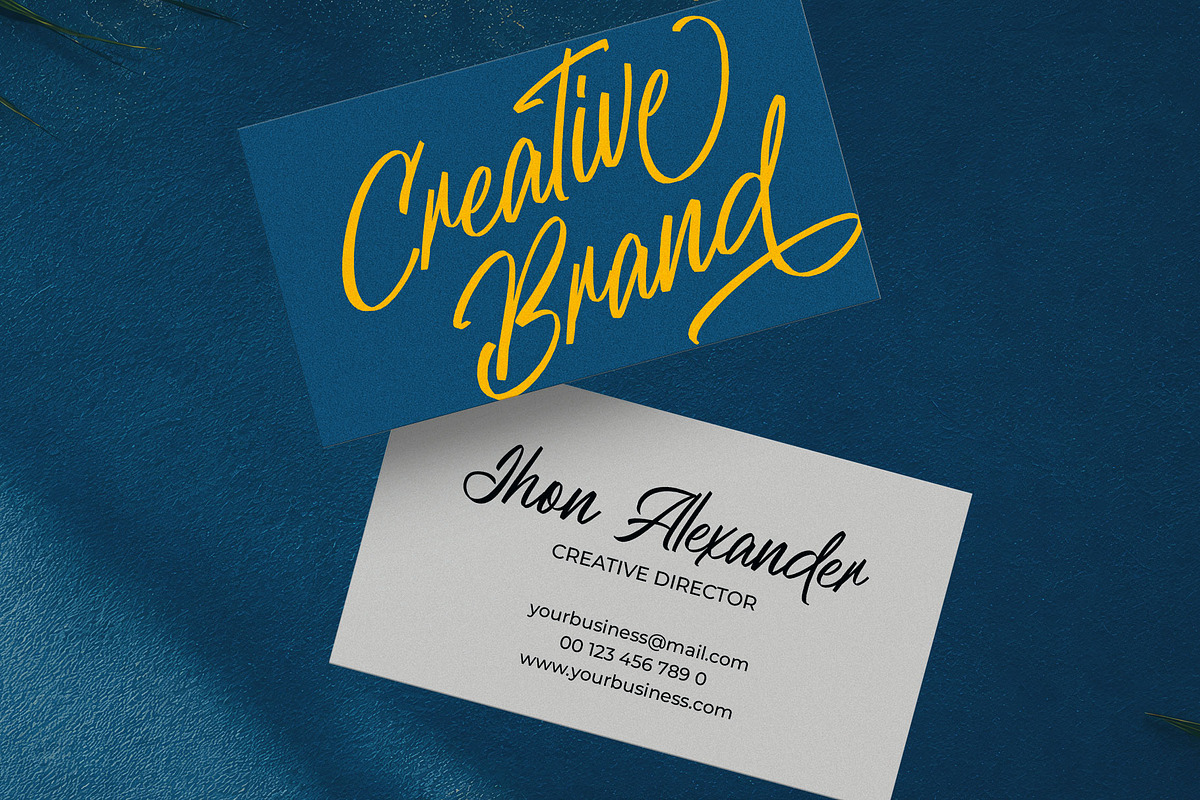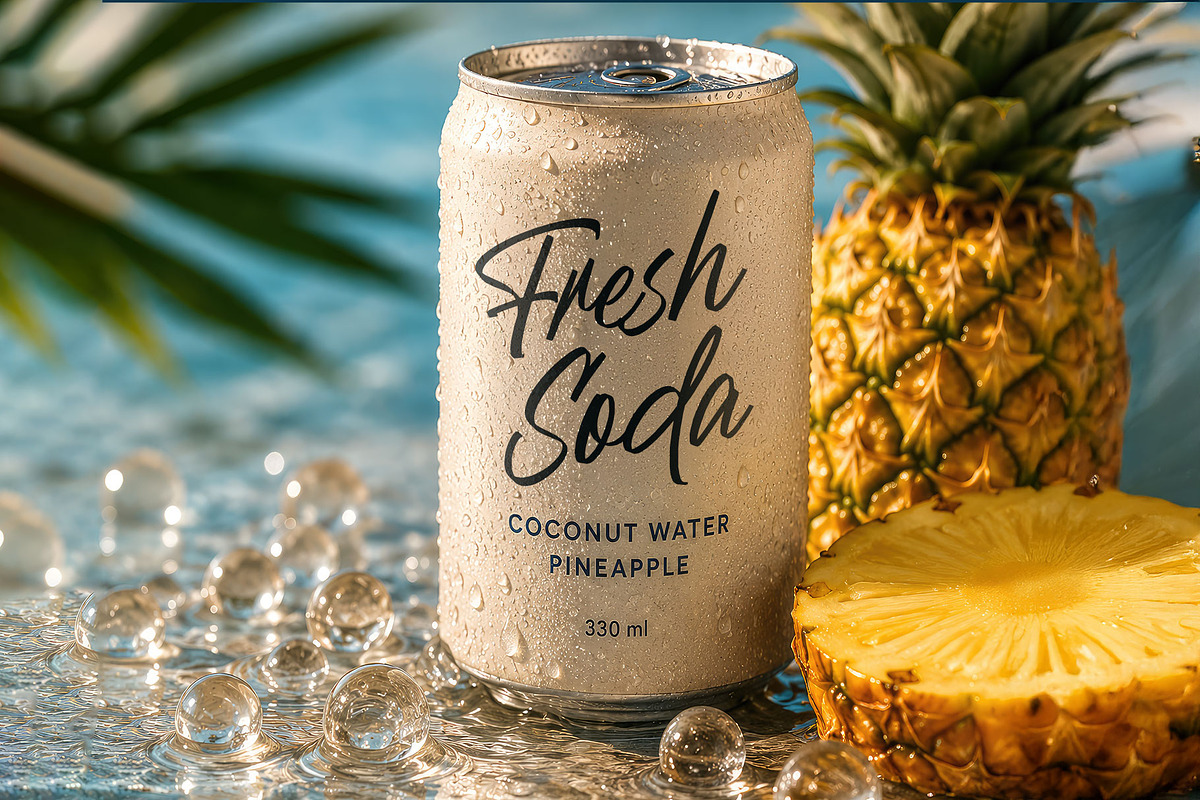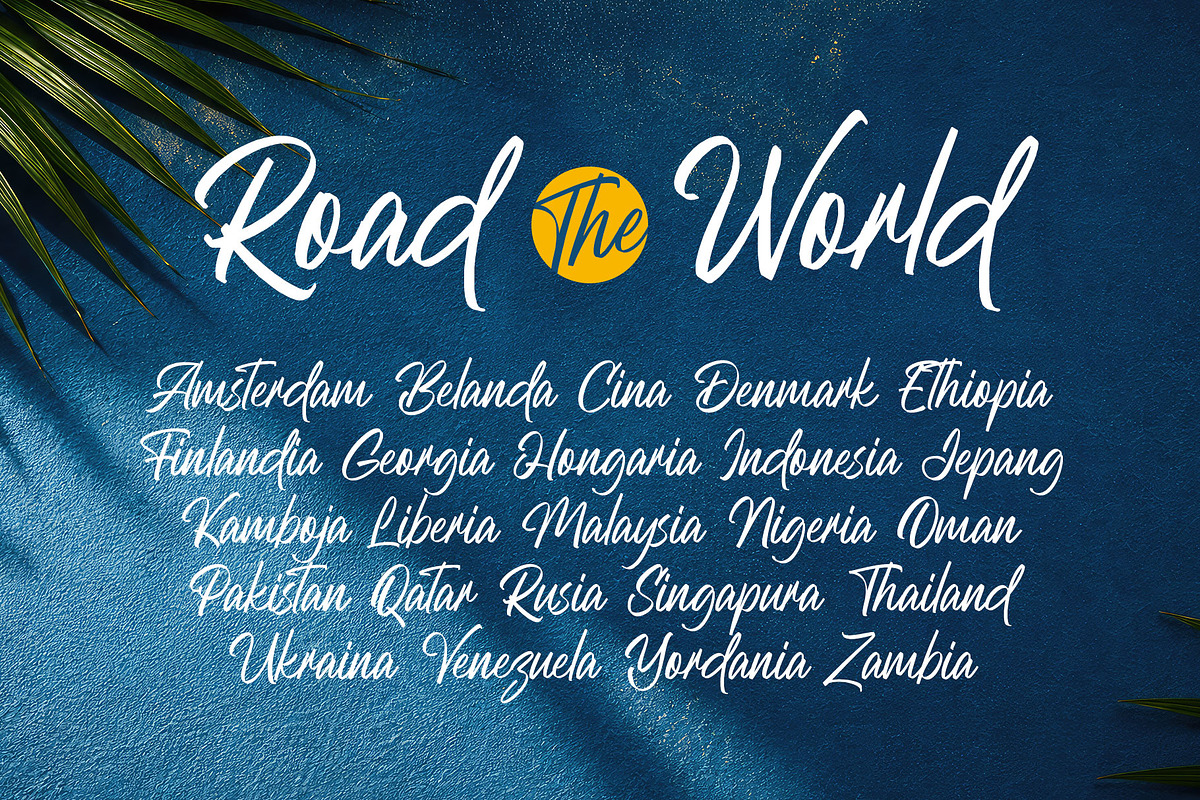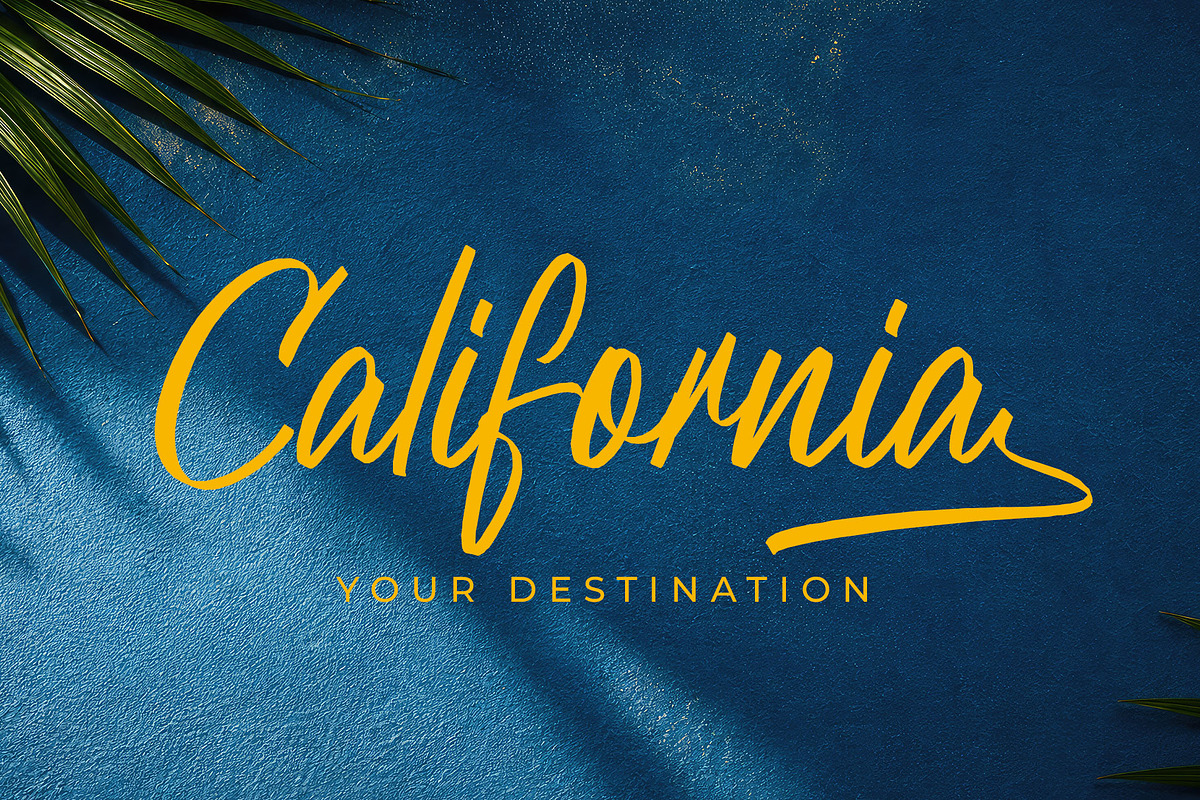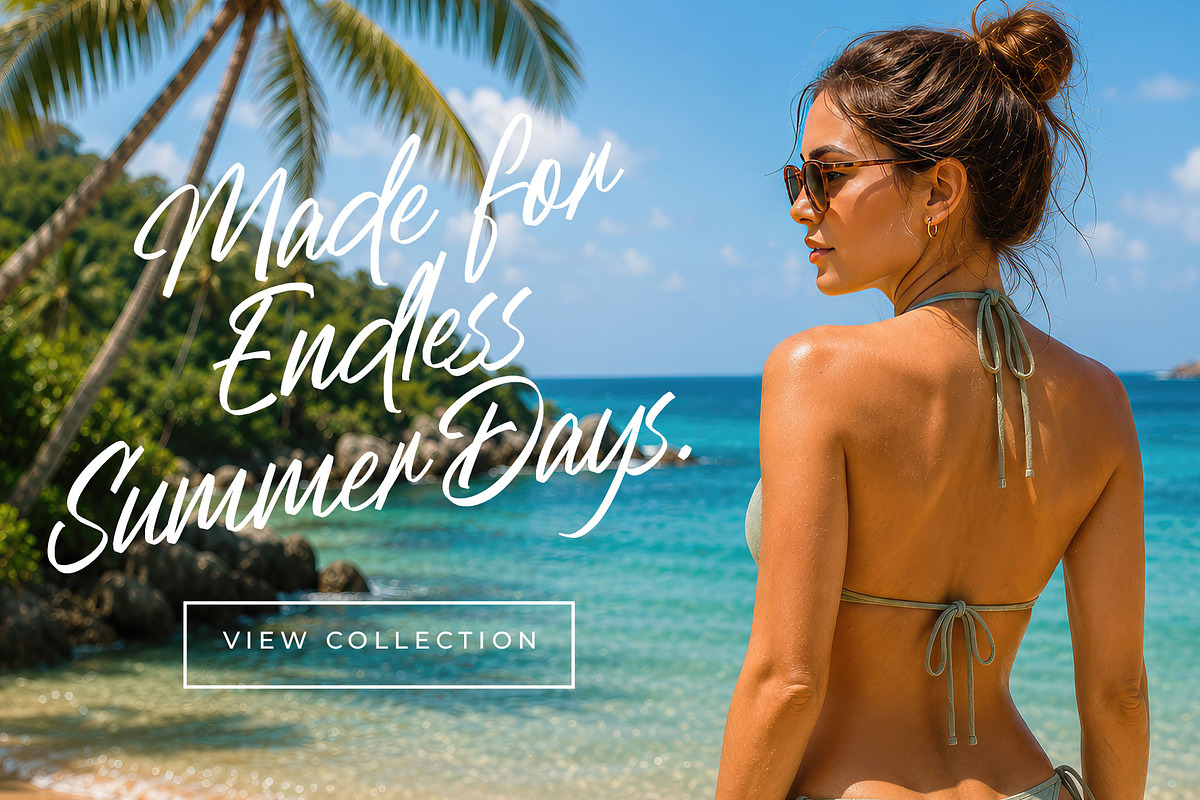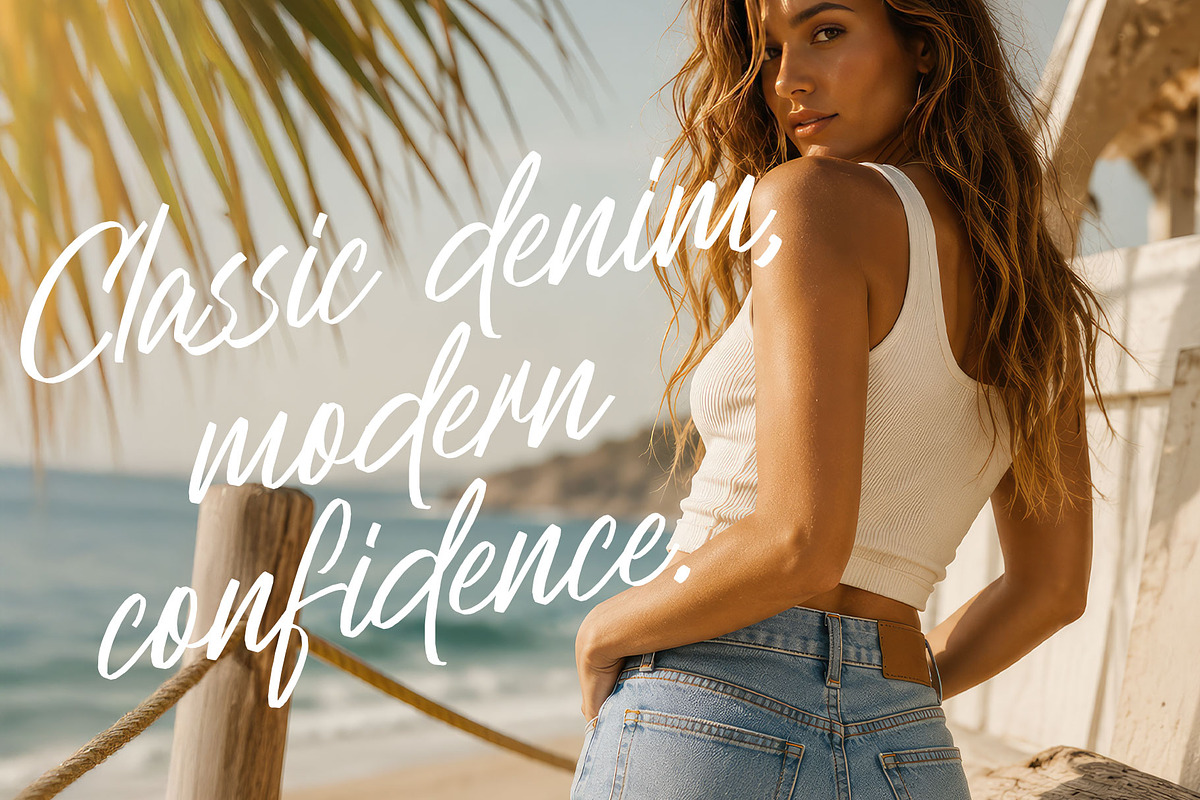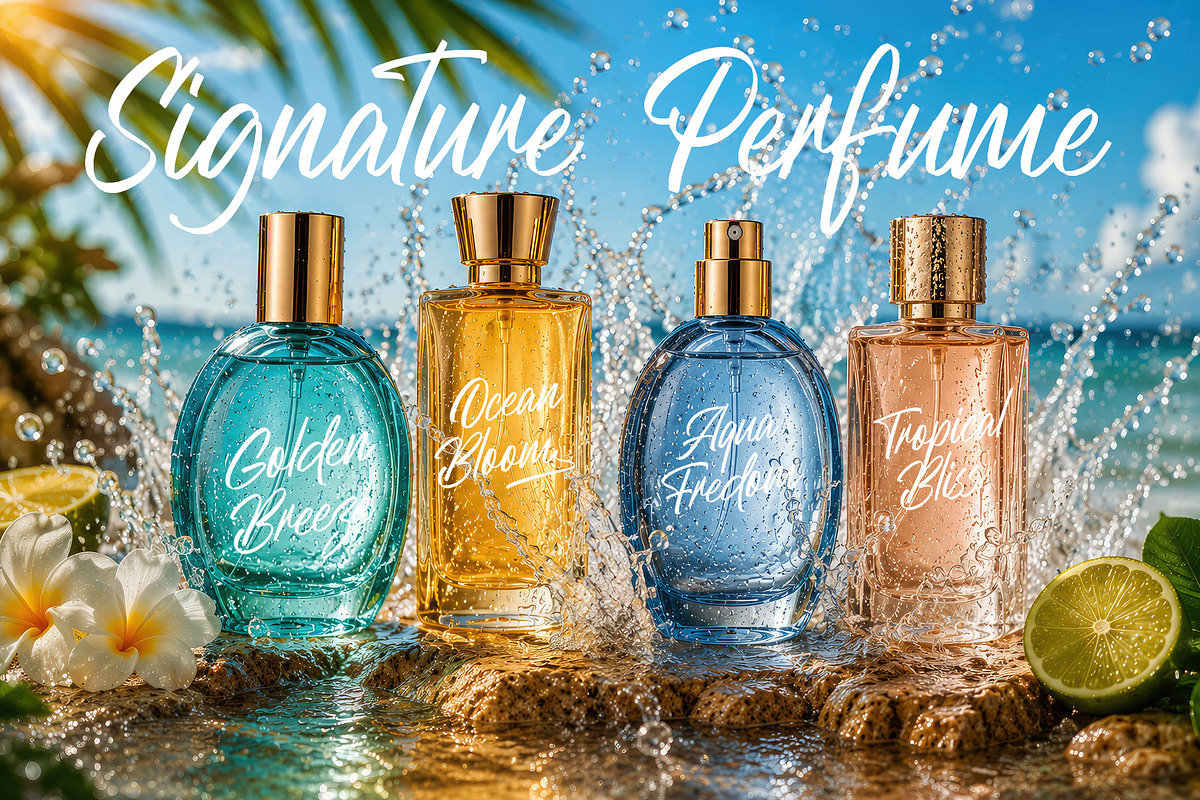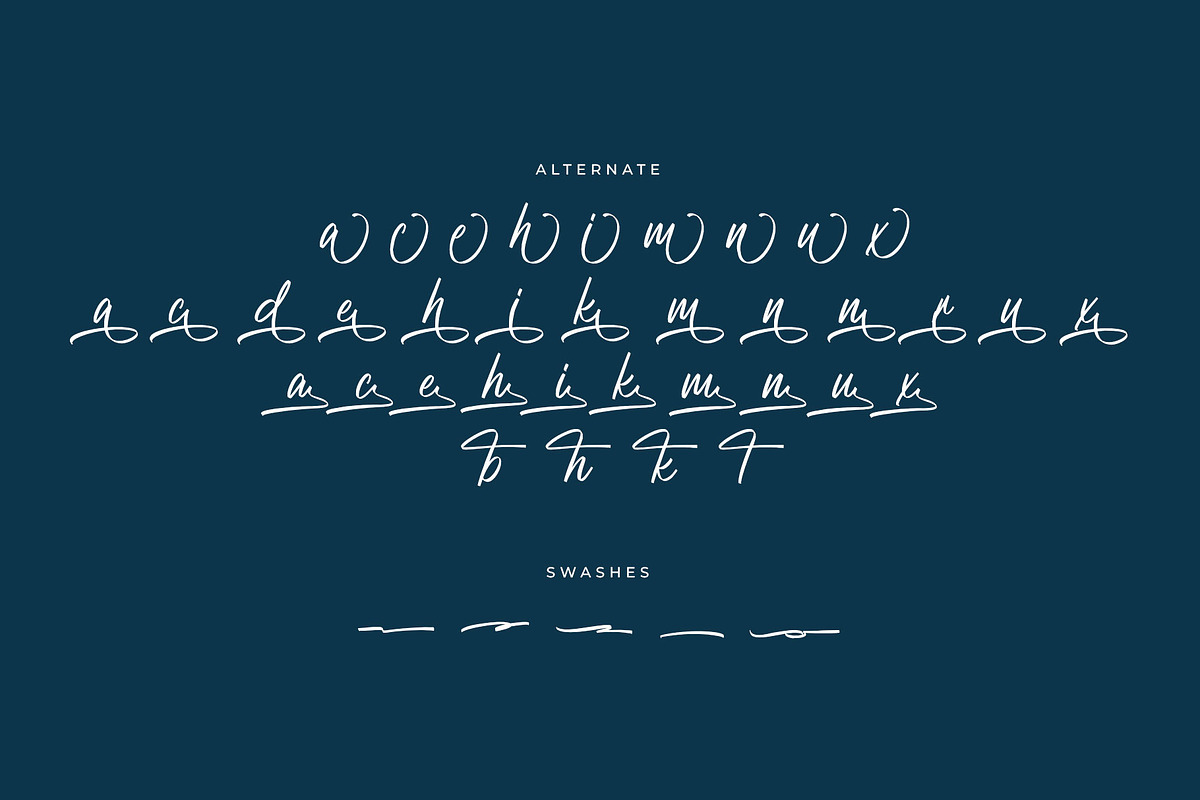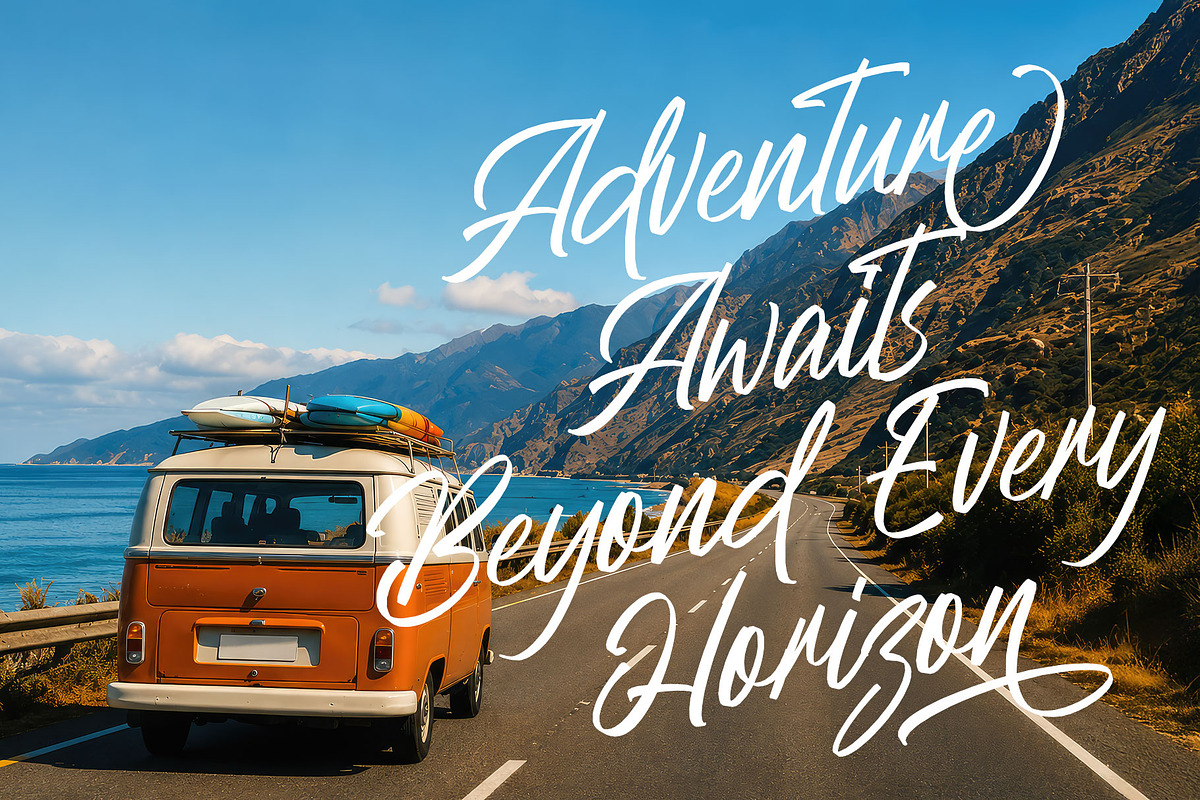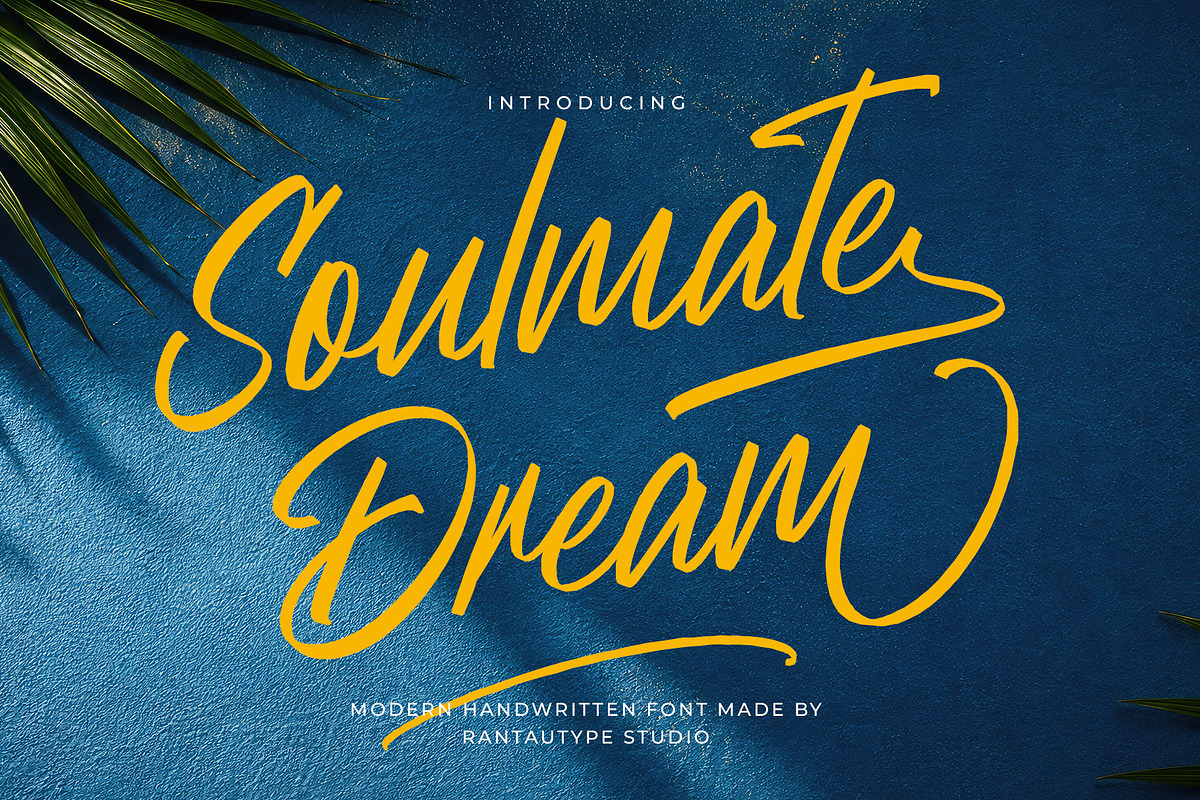
Soulmate Dream Modern Handwritten
Soulmate Dream is a modern handwritten font that beautifully blends contemporary elegance with effortless authenticity. Designed with fluid strokes and a natural signature-inspired style, this typeface captures the feeling of personal expression while maintaining a refined and professional appearance. Its smooth curves, elongated letterforms, and dynamic movement create a sense of freedom, warmth, and sophistication that instantly draws attention.
Soulmate Dream is a perfectly choice for any creative endeavor, creating, modern, lifestyle design such as logotype, title, cover, branding, invitations, wedding designs, display and magazine, social media posts, advertisements, printed quotes, product packaging, corporate brand, product designs, labels, photography, watermarks, special events and any other project with modern touch.
Fonts include Multilingual Character for: Afrikaans, Albanian, Asu, Basque, Bemba, Bena, Breton, Chiga, Cornish, Dutch, English, Estonian, Filipino, Finnish, Friulian, Galician, Gusii, Indonesian, Irish, Italian, Kabuverdianu, Kalenjin, Kinyarwanda, Luo, Luxembourgish, Luyia, Machame, North, Oromo, Portuguese, Quechua, Romansh, Rombo, Rundi, Rwa, Samburu, Sango, Sangu, Scottish, Gaelic, Sena, Shambala, Shona, Soga, Somali, Spanish, Swahili, Swedish, Swiss, German.